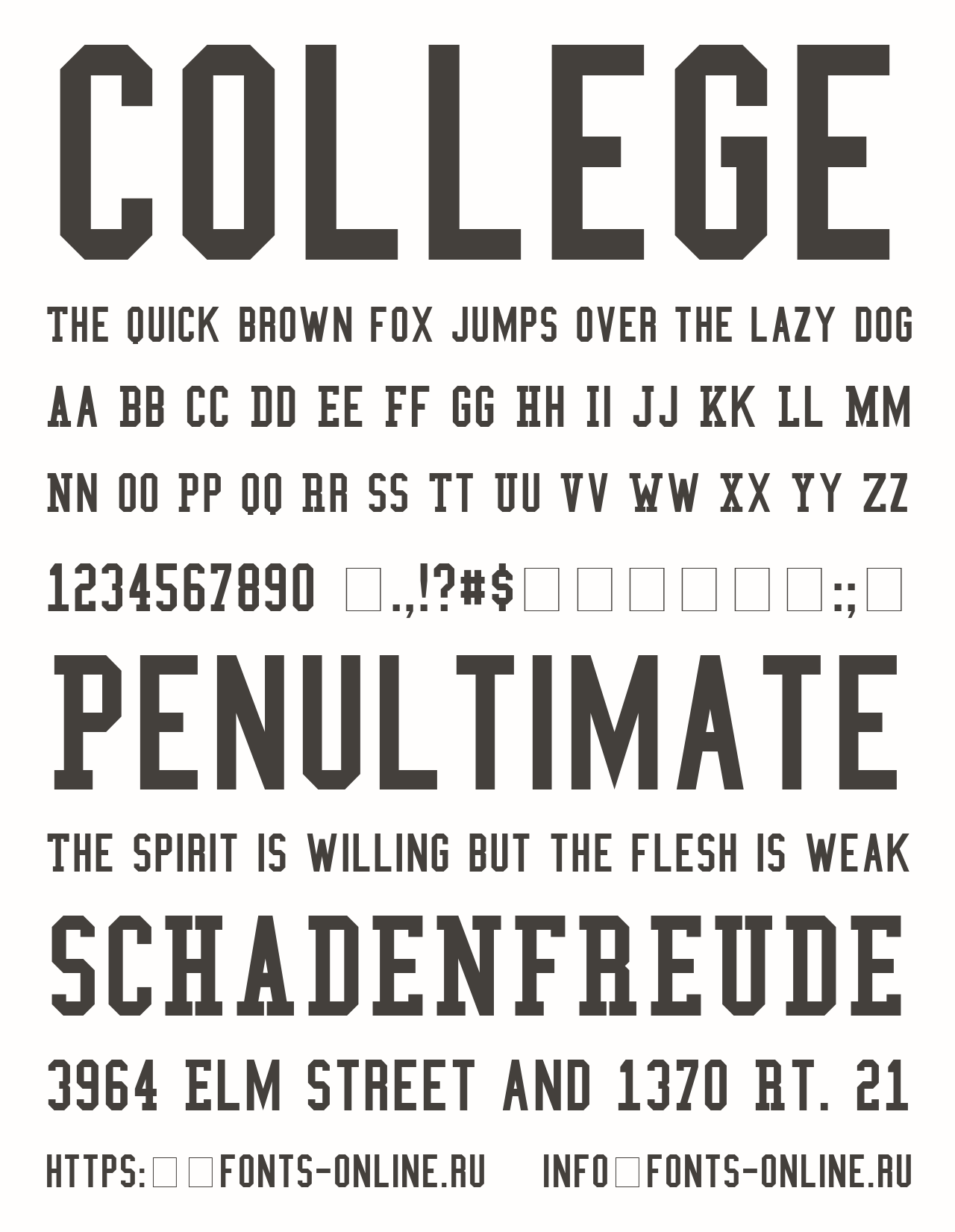
Best Fonts For College Posters . The typefaces below will help your text stand out and emphasize the message and feeling you want to portray through your banner and poster. Here we gathered over 30 college fonts, and trust me, at least a. Finding the best poster fonts. Explore the best fonts for academic papers: Try adding them to postcards, posters or web design and you’ll see how classic and clean they will look right away. From bold, athletic block letters that scream team spirit to elegant serifs that. Our expertly crafted list of 15 unique typefaces delivers the most iconic fonts to use for your poster design. Tips on readability, style, and the perfect typography choices for essays, theses, and research.
Try adding them to postcards, posters or web design and you’ll see how classic and clean they will look right away. The typefaces below will help your text stand out and emphasize the message and feeling you want to portray through your banner and poster. Here we gathered over 30 college fonts, and trust me, at least a. Tips on readability, style, and the perfect typography choices for essays, theses, and research. Explore the best fonts for academic papers: Finding the best poster fonts. From bold, athletic block letters that scream team spirit to elegant serifs that. Our expertly crafted list of 15 unique typefaces delivers the most iconic fonts to use for your poster design.
Best Fonts For College Posters Our expertly crafted list of 15 unique typefaces delivers the most iconic fonts to use for your poster design. Here we gathered over 30 college fonts, and trust me, at least a. Explore the best fonts for academic papers: Try adding them to postcards, posters or web design and you’ll see how classic and clean they will look right away. Our expertly crafted list of 15 unique typefaces delivers the most iconic fonts to use for your poster design. From bold, athletic block letters that scream team spirit to elegant serifs that. Tips on readability, style, and the perfect typography choices for essays, theses, and research. The typefaces below will help your text stand out and emphasize the message and feeling you want to portray through your banner and poster. Finding the best poster fonts.
5 Collegiate Fonts Everyone Loves The Vector Art Experts Best Fonts For College Posters The typefaces below will help your text stand out and emphasize the message and feeling you want to portray through your banner and poster. Tips on readability, style, and the perfect typography choices for essays, theses, and research. Explore the best fonts for academic papers: Our expertly crafted list of 15 unique typefaces delivers the most iconic fonts to use. Best Fonts For College Posters.
80+ Best Big, Poster Fonts of 2024 Design Shack Best Fonts For College Posters The typefaces below will help your text stand out and emphasize the message and feeling you want to portray through your banner and poster. Try adding them to postcards, posters or web design and you’ll see how classic and clean they will look right away. From bold, athletic block letters that scream team spirit to elegant serifs that. Finding the. Best Fonts For College Posters.
60+ Best Big, Poster Fonts of 2020 Design Shack Best Fonts For College Posters Try adding them to postcards, posters or web design and you’ll see how classic and clean they will look right away. Finding the best poster fonts. Tips on readability, style, and the perfect typography choices for essays, theses, and research. Here we gathered over 30 college fonts, and trust me, at least a. The typefaces below will help your text. Best Fonts For College Posters.
25 Free College Fonts to download Best Fonts For College Posters Here we gathered over 30 college fonts, and trust me, at least a. Try adding them to postcards, posters or web design and you’ll see how classic and clean they will look right away. From bold, athletic block letters that scream team spirit to elegant serifs that. Finding the best poster fonts. Tips on readability, style, and the perfect typography. Best Fonts For College Posters.
10+ Best College Block Fonts in 2021Free and Premium Master Bundles Best Fonts For College Posters Finding the best poster fonts. Here we gathered over 30 college fonts, and trust me, at least a. Our expertly crafted list of 15 unique typefaces delivers the most iconic fonts to use for your poster design. Try adding them to postcards, posters or web design and you’ll see how classic and clean they will look right away. From bold,. Best Fonts For College Posters.
60+ Best Fonts for Posters 2023 Design Hawks Best Fonts For College Posters Tips on readability, style, and the perfect typography choices for essays, theses, and research. The typefaces below will help your text stand out and emphasize the message and feeling you want to portray through your banner and poster. Try adding them to postcards, posters or web design and you’ll see how classic and clean they will look right away. Finding. Best Fonts For College Posters.
25+ Best College Fonts & Varsity Fonts (Free & Premium) Best Fonts For College Posters Finding the best poster fonts. From bold, athletic block letters that scream team spirit to elegant serifs that. The typefaces below will help your text stand out and emphasize the message and feeling you want to portray through your banner and poster. Tips on readability, style, and the perfect typography choices for essays, theses, and research. Our expertly crafted list. Best Fonts For College Posters.
25+ Best College Fonts & Varsity Fonts (Free & Premium) Best Fonts For College Posters The typefaces below will help your text stand out and emphasize the message and feeling you want to portray through your banner and poster. Finding the best poster fonts. Here we gathered over 30 college fonts, and trust me, at least a. From bold, athletic block letters that scream team spirit to elegant serifs that. Try adding them to postcards,. Best Fonts For College Posters.
32 Best College & Varsity Fonts Vandelay Design Best Fonts For College Posters Tips on readability, style, and the perfect typography choices for essays, theses, and research. Explore the best fonts for academic papers: Here we gathered over 30 college fonts, and trust me, at least a. Our expertly crafted list of 15 unique typefaces delivers the most iconic fonts to use for your poster design. From bold, athletic block letters that scream. Best Fonts For College Posters.